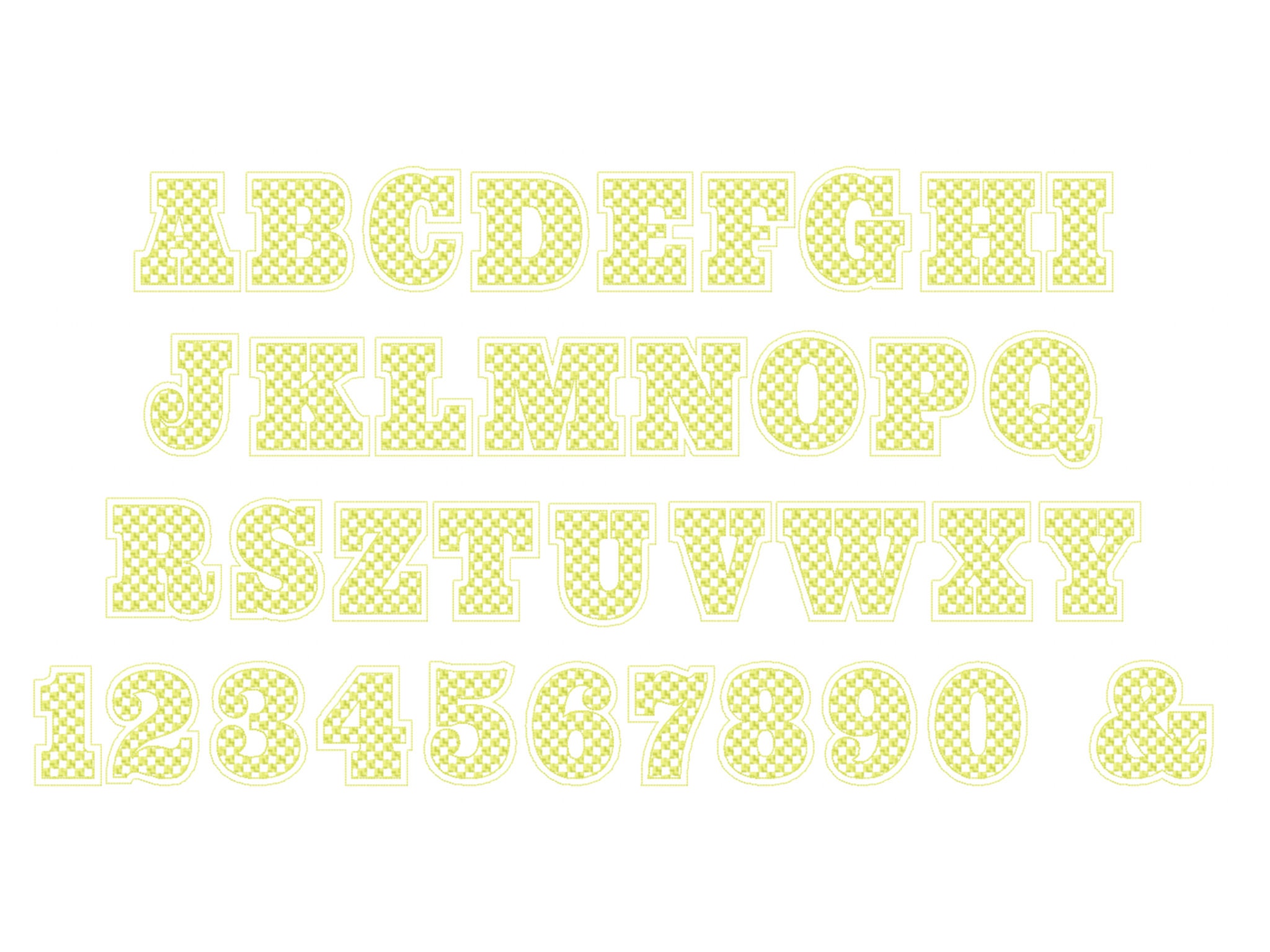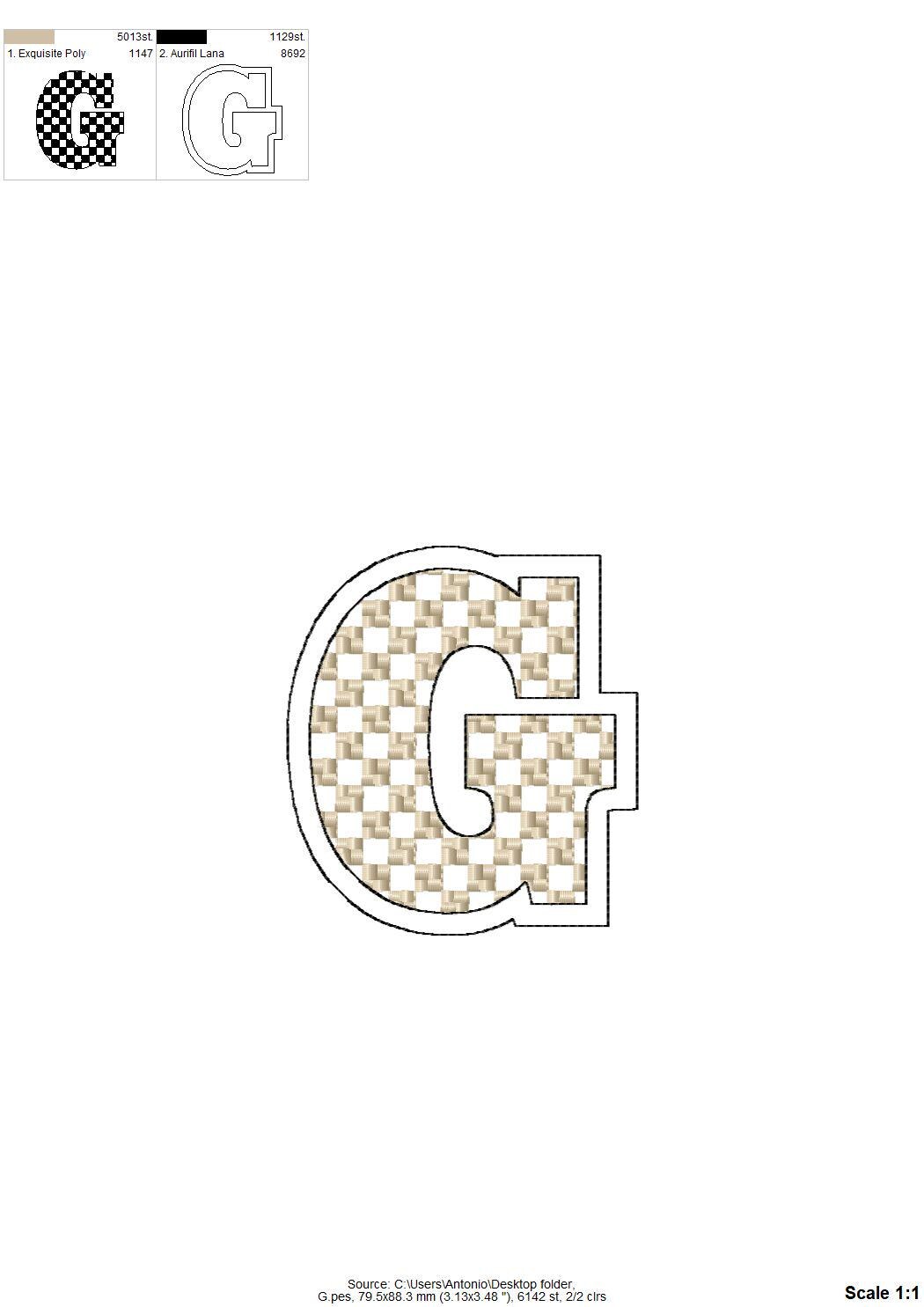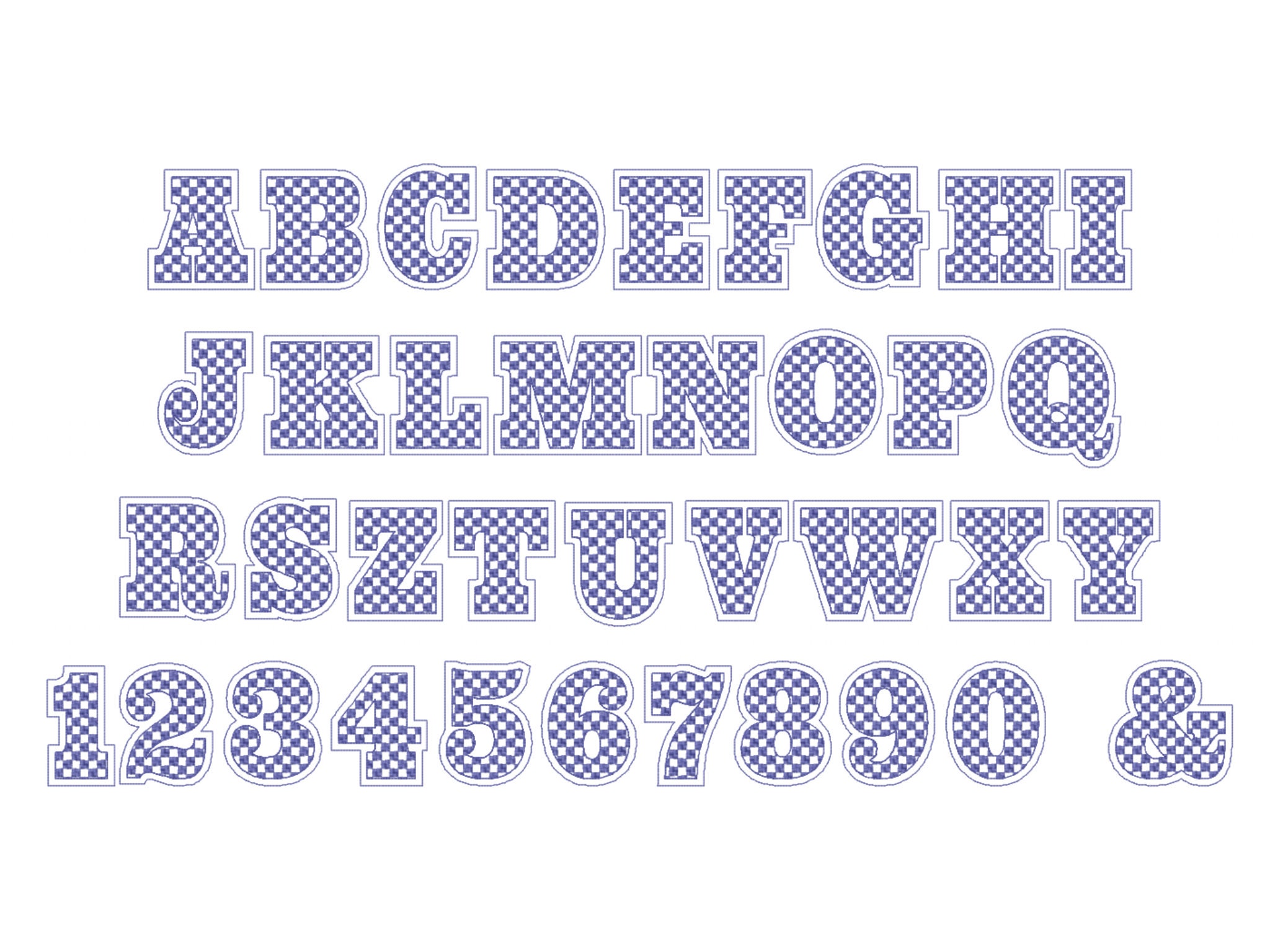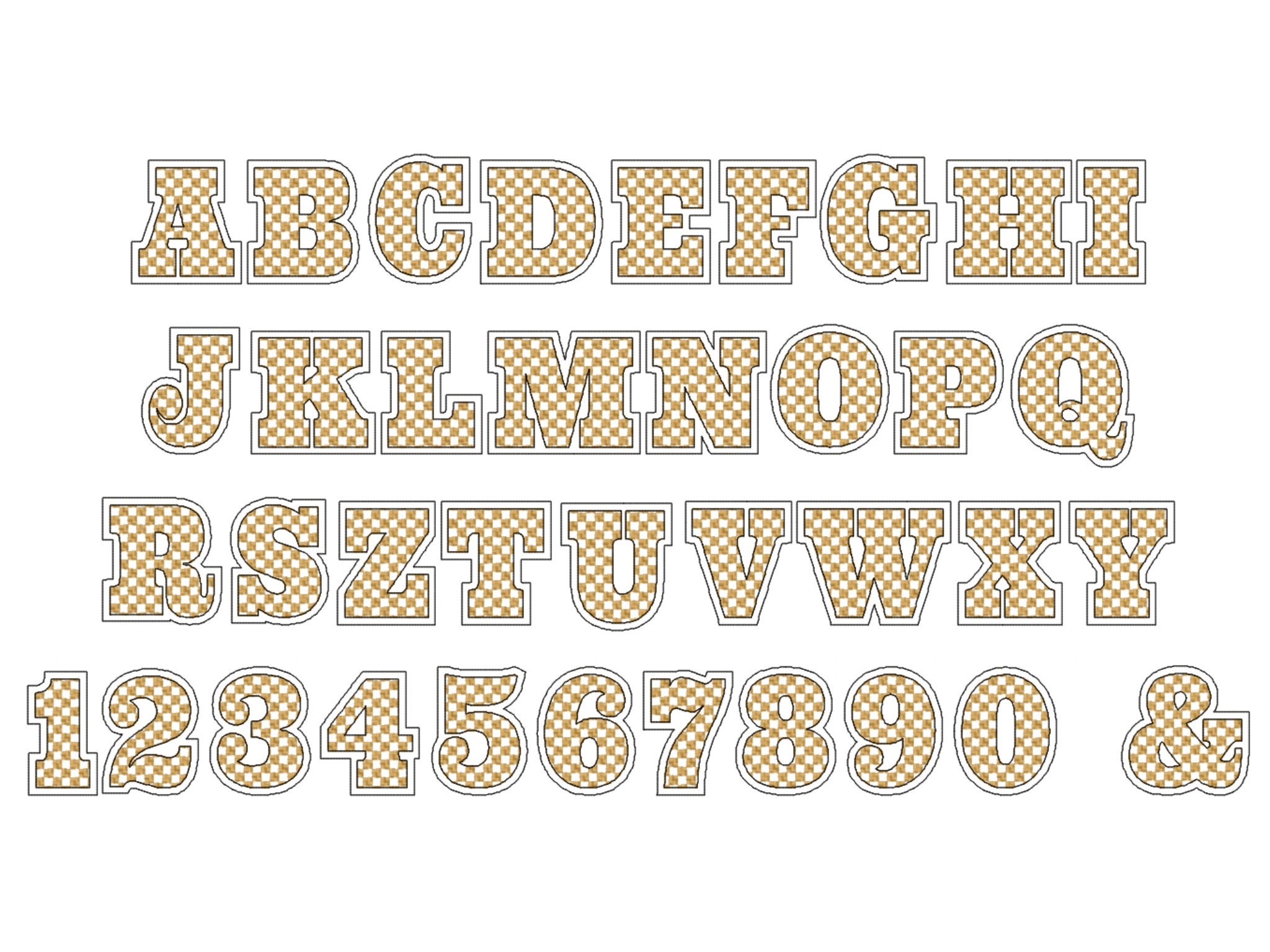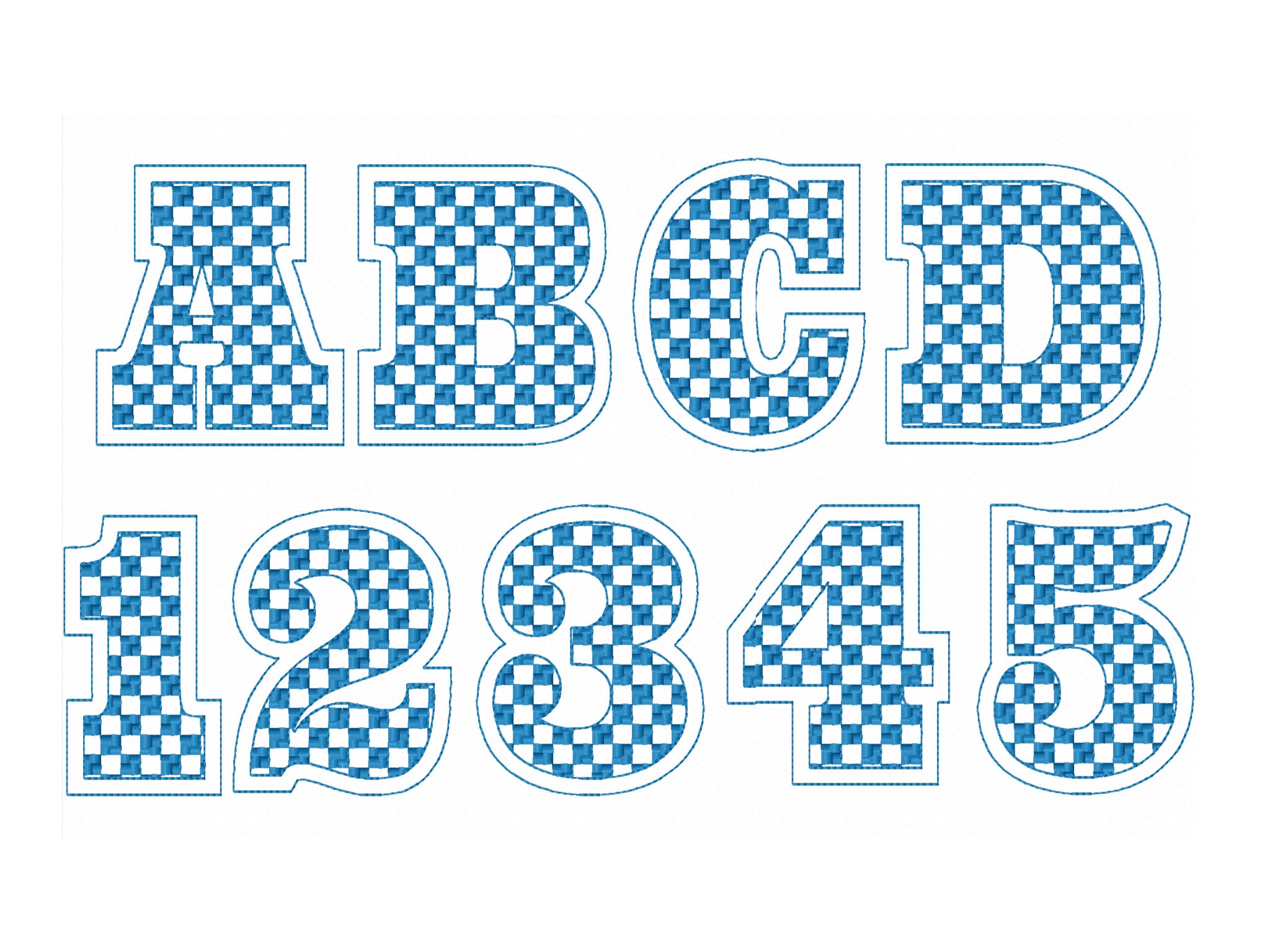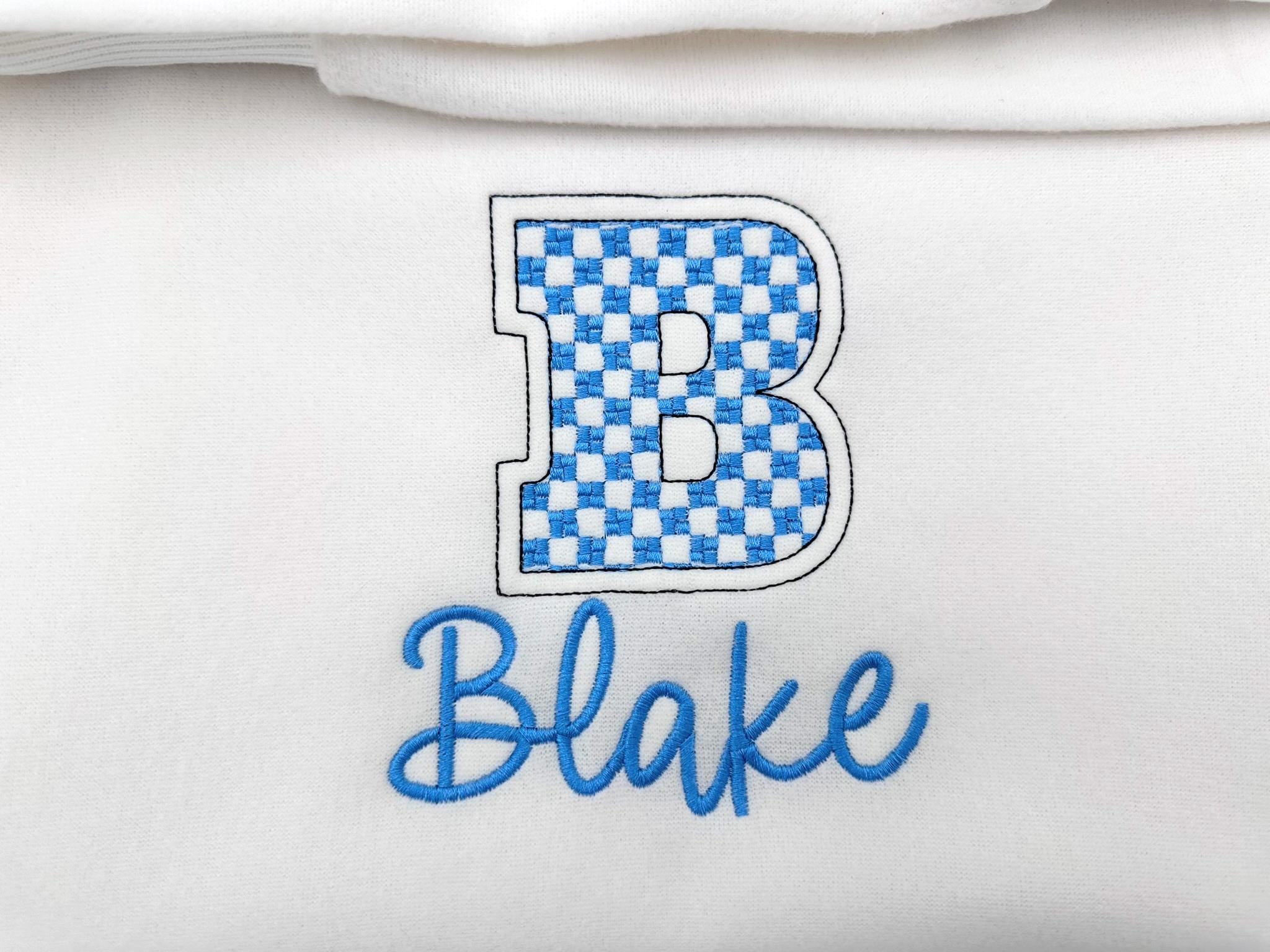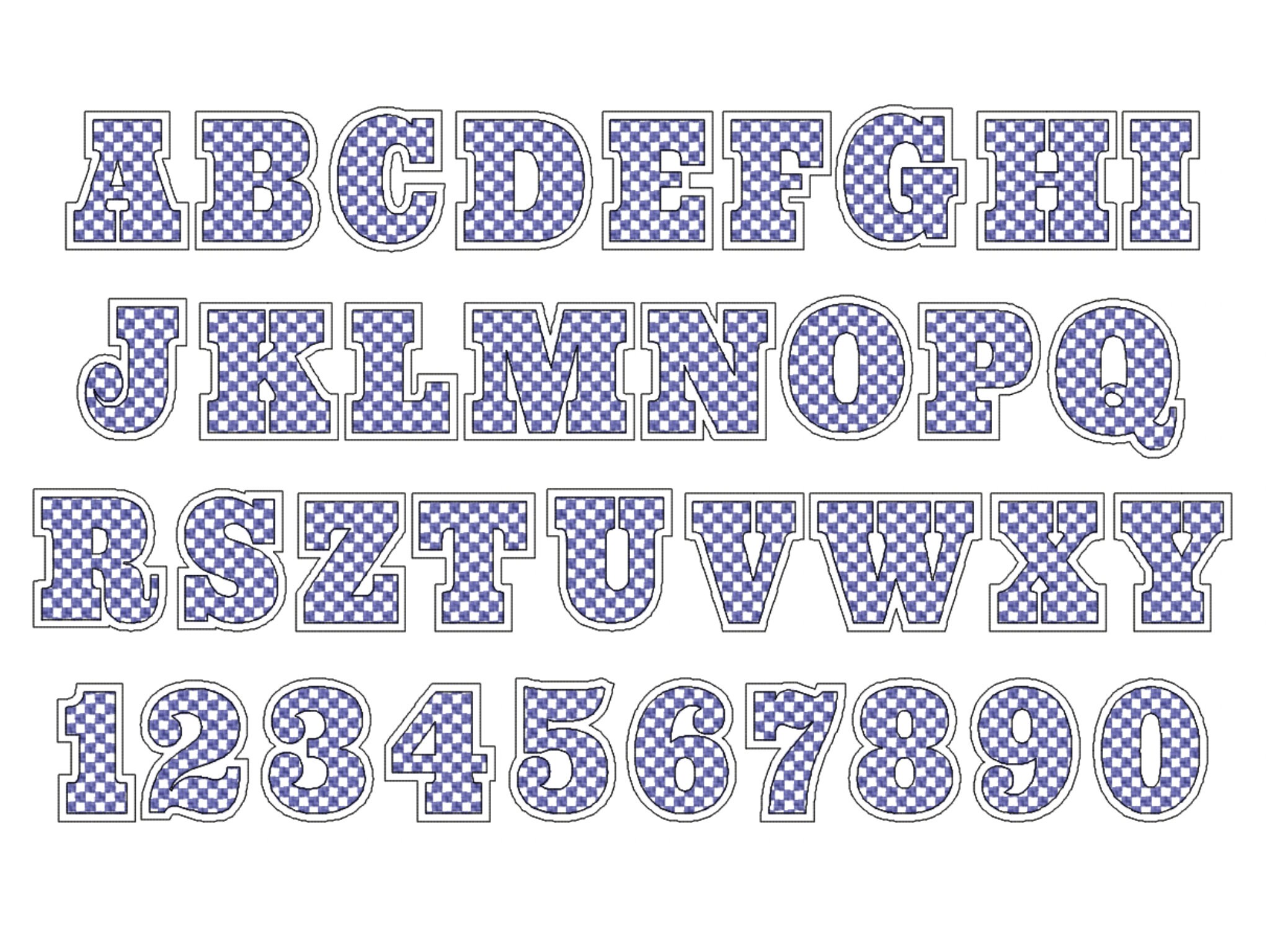
Big Double outline checkered monogram font alphabet letters machine embroidery designs 2.7 " thru 6" Perfect big letter embroidery
Only outlines (not an applique), the checks are part of the design.
Transparent font, the background fabric looks through. Awesome effect!
Uppercase letters and numbers and ampersand &